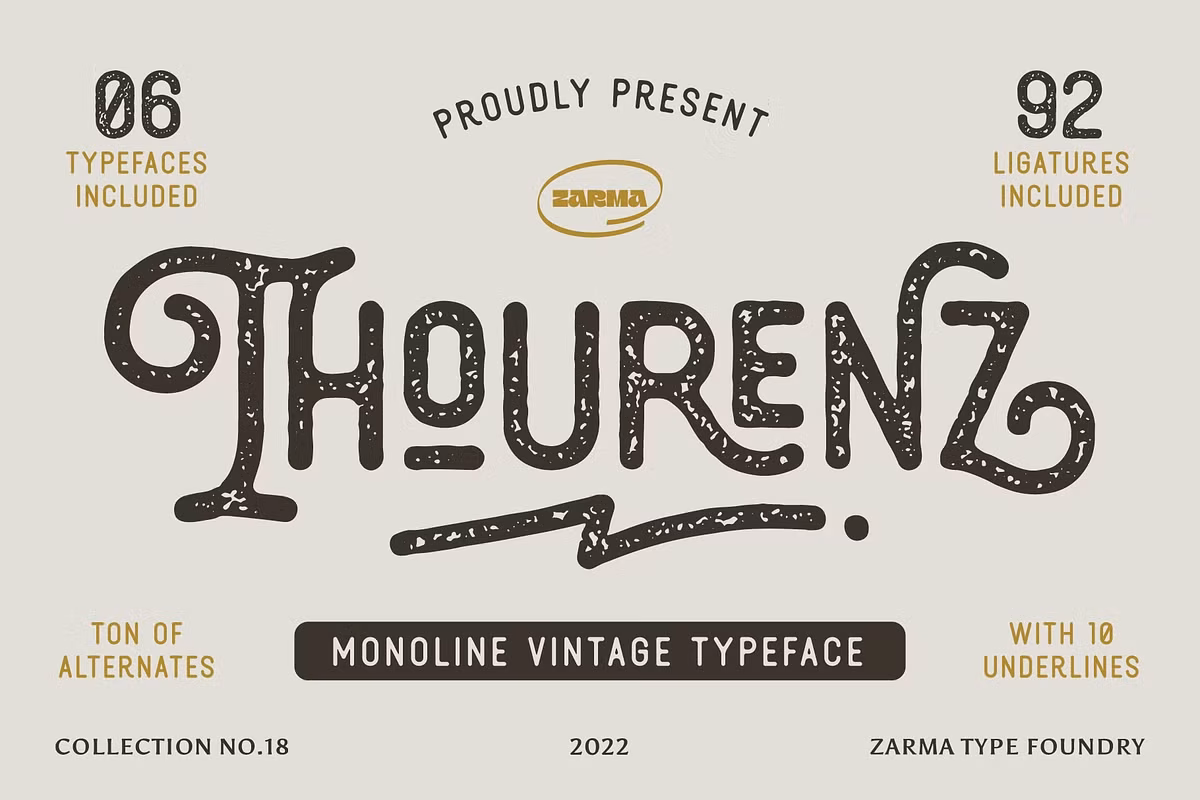
Thourenz - Monoline Vintage Font Free Download
Thourenz Monoline Vintage Font Free Download
Thourenz Monoline Vintage Font Free Download is a smooth, nostalgic typeface that evokes the charm of mid-century hand lettering. With its clean, monoline strokes and retro-inspired aesthetic, this font is perfect for logos, branding, signage, labels, and packaging that demand a vintage yet polished look.
Whether you’re building a retro brand identity, creating an elegant label, or designing timeless promotional materials, Thourenz brings warmth, simplicity, and sophistication to your typography. It’s the ideal font for designers who love vintage aesthetics with a modern monoline twist.